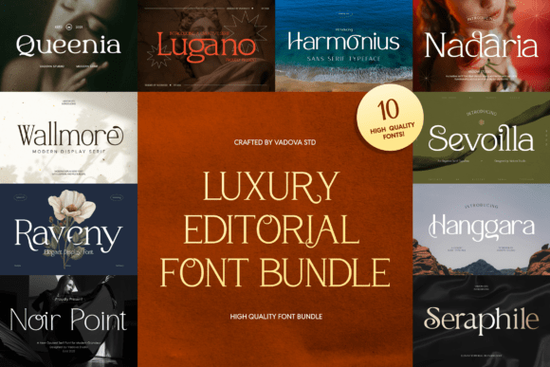
Luxury Editorial Bundle Font
The Luxury Editorial Bundle Font collection gives you 10 refined typefaces built for projects that need a polished, upscale look. Available on Creative Fabrica, this bundle brings together elegant serif and clean sans serif fonts with balanced proportions and carefully crafted letterforms the kind of typography you'd spot in fashion magazines and premium brand identities.
If you design branding materials, editorial layouts, product packaging, or print-on-demand graphics, having a reliable set of luxury-style fonts on hand makes your workflow smoother and your results more consistent. Here's a closer look at what's inside and how to use these fonts effectively.
What fonts are included in the bundle?
The collection covers a range of serif, sans serif, and display styles. Here's the full list:
• Editorial Serif classic serif with graceful strokes and balanced weight
• Luxe Sans clean, modern sans serif suitable for body text and captions
• Prestige Display bold display type designed for headlines
• Noble Headline refined uppercase font for titles and headers
• Refined Gothic sophisticated sans serif with subtle stroke contrast
• Mode Serif editorial serif with a fashion-forward personality
• Atelier Sans minimal sans serif that pairs easily with display fonts
• Couture Display decorative display type with luxury character
• Chic Typeface versatile font that adapts to different design contexts
• Vogue Serif serif style inspired by fashion editorial layouts
Having both serif and sans serif options in one download means you can build full typographic hierarchies display font for headings, serif for subheads, sans serif for body copy without hunting for matching fonts elsewhere.
What kinds of projects can I use these fonts for?
These typefaces were designed with luxury and editorial aesthetics in mind. They work particularly well for:
• Fashion and lifestyle editorials magazine layouts, lookbooks, and style guides
• Boutique branding logos, business cards, brand guidelines, and packaging
• Beauty and cosmetic packaging product labels, boxes, and promotional inserts
• Wedding and event stationery invitations, save-the-dates, menus, and programs
• Social media design Instagram posts, stories, Pinterest graphics, and ad creatives
• Print-on-demand products wall art, tote bags, mugs, and notebook covers
For POD sellers especially, luxury-style serif fonts can shift how customers perceive your designs. A simple motivational quote set in a refined serif looks noticeably more premium than the same text in a default system font. That difference often translates to better conversions.
How does this bundle compare to other serif font options?
The Luxury Editorial Bundle takes a distinctly different direction. It focuses on refined, magazine-quality typography with a consistent visual thread across all 10 fonts. If your work targets fashion, beauty, or upscale lifestyle clients, having a cohesive font collection like this is more practical than assembling mismatched fonts from different sources.
According to editorial typography trends tracked by Vogue Serif and similar references, serif typefaces continue to dominate luxury and fashion branding. Fonts with clean proportions and subtle details tend to feel more trustworthy and sophisticated than overly decorative alternatives.
Tips for pairing fonts from this bundle
Good font pairing makes a real difference in how professional your designs look. Here are a few combinations that work well with this set:
• For fashion editorials: Use Prestige Display for the main headline, Mode Serif for pull quotes, and Luxe Sans for body text.
• For beauty branding: Pair Couture Display with Atelier Sans for a clean, luxurious contrast.
• For wedding stationery: Combine Editorial Serif with Chic Typeface for an elegant but readable result.
• For social media: Use Noble Headline for bold statements and Refined Gothic for supporting text.